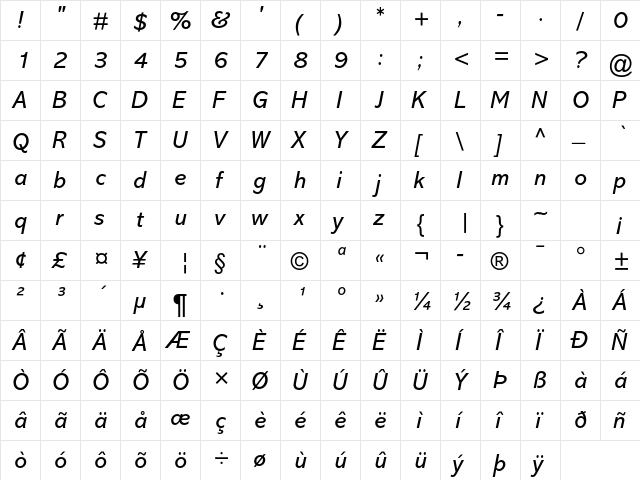
Abadi MT Std Italic
Design Context for Abadi MT Std Typeface
Abadi MT Std offers clean, dependable letterforms without strong stylistic allegiance, making it a practical choice for designers who need flexibility. The slanted form adds forward momentum and visual energy.
Pro Tip: Use Abadi MT Std for emphasis, pull quotes, and subheadings where its slanted energy can add rhythm to the layout.